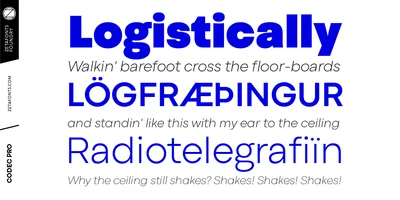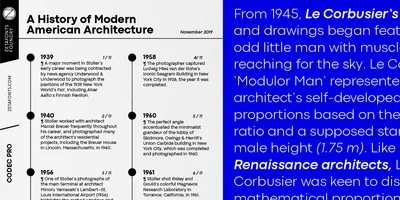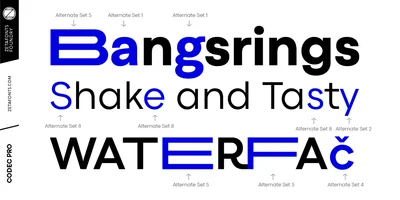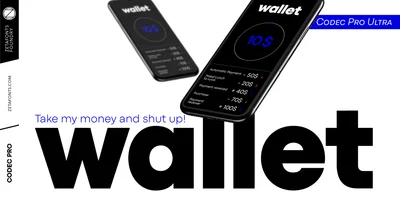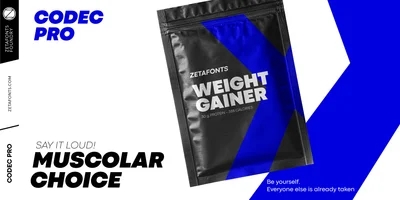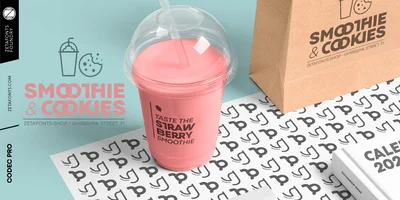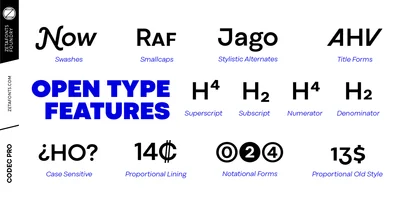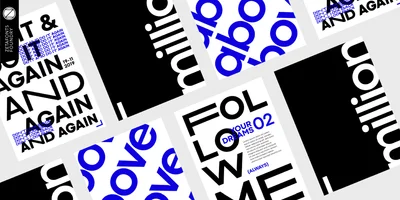
Cera Pro vs Codec Pro
Cera Pro and Codec Pro are both sans-serif typefaces sharing a geometric foundation. Where Cera Pro leans warm, Codec Pro brings futuristic, tech. Compare which suits your Branding project.
Cera Pro
Geometric
ModernWarm
Codec Pro
Geometric
ModernFuturistic
Tech
| Feature | Cera Pro | Codec Pro |
| Language Support | latin, latin-extended, cyrillic | latin, latin-extended |
| Source | TypeMates | ZETAFONTS |
Recommended: Cera Pro
- warm design character
- Suited for Startup
- From typemates
Consider: Codec Pro
- futuristic, tech design character
- Suited for Gaming
- From zetafonts